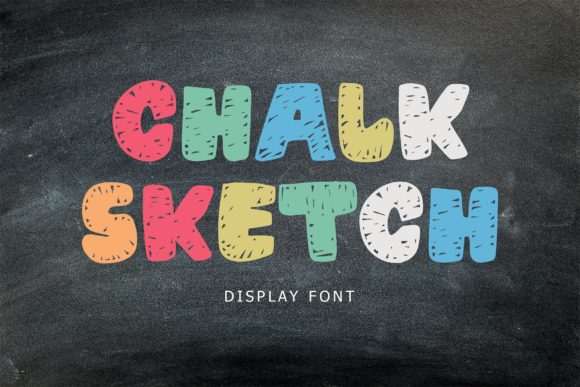
The Magic of Chalk Sketch Font
Have you ever sat at your desk, staring at a blank canvas, waiting for that spark of inspiration to strike? Maybe you’re brainstorming ideas for a new project, and suddenly, a burst of color and creativity hits you. For designers like you, that moment is a beautiful thing – and it’s exactly what the Chalk Sketch Font is designed to capture.
This bold and colorful display font is more than just a typeface – it’s a way to bring your ideas to life. With its friendly feel, the Chalk Sketch Font is incredibly versatile, fitting a wide range of contexts. Whether you’re designing a poster, a logo, or a social media graphic, this font is sure to make your creative ideas stand out. As a valuable addition to any designer’s toolkit, the Chalk Sketch Font is a must-have for anyone looking to add a little extra flair to their work.
Chalk Sketch Font Key Features
- Unique Characteristics: Chalk Sketch Font features a distressed, hand-drawn look with subtle texture and imperfections, giving it a unique, artisanal feel.
Review of Chalk Sketch Font
As a designer, I was excited to try out the Chalk Sketch Font, a unique and artistic typeface that promises to bring a touch of whimsy to any project. ✨ Here are my honest thoughts on what works well and what doesn’t:
- ✨ The font’s textured, hand-drawn feel is perfect for creating a vintage or rustic look in designs.
- ✨ The font is highly customizable, with a wide range of options for adjusting the texture, color, and size.
- ✨ The font is well-suited for use in illustrations, graphics, and other creative projects where a unique, artistic feel is desired.
- ⚠️ The font can be difficult to read in smaller sizes or when used in large blocks of text.
- ⚠️ The font’s texture can be distracting in some cases, making it difficult to focus on the content.
- ⚠️ The font is not suitable for use in formal or professional designs where a more traditional, clean typeface is desired.
The Chalk Sketch Font is a unique and creative typeface that can add a touch of personality to designs. While it has some limitations, it is well-suited for use in creative projects where a vintage or rustic look is desired. With some careful consideration and use, this font can be a valuable addition to any designer’s toolkit.
The Chalk Sketch Font is perfect for:
- Creating a distressed or vintage look.
- Adding texture and depth to your text.
- Designing posters, flyers, and other marketing materials.
- Creating a unique and eye-catching title or heading.
Alternative Fonts to Chalk Sketch Font